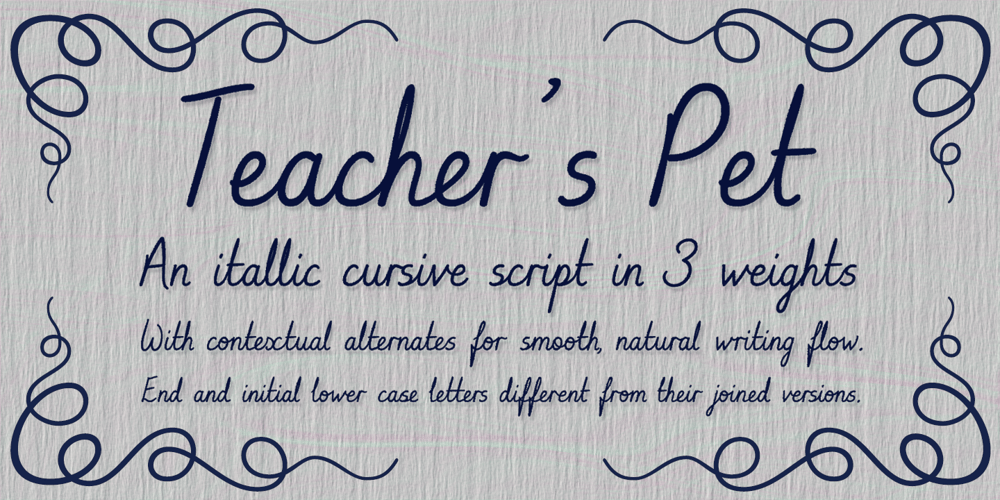
Teacher’s Pet
Teacher’s Pet font
Teacher’s Pet Font Family was designed by Tanya Davis and published by Scrowleyfonts. Teacher’s Pet contains 3 styles and family package options. So often as a designer I have wanted a handwriting font that is modern, natural and realistic, simple and attractive. I created this font to meet my own need. Teacher’s Pet makes full use of the knowledge I have acquired over the years designing school handwriting fonts. It contains many contextual alternates to ensure that the flow of writing is as unartificial as possible. I have been disciplined in its creation, always making and coding a new glyph to ensure this flow rather than compromising.